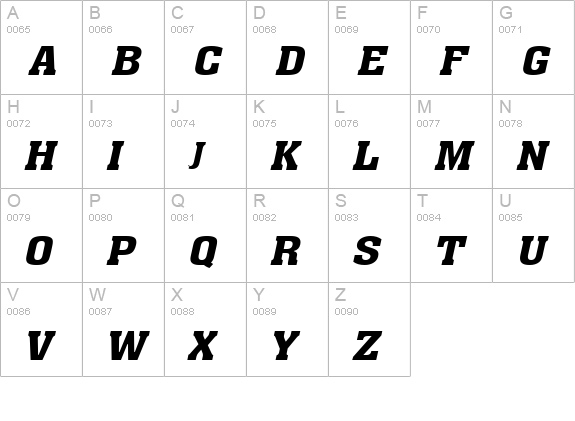
Ache Wide BoldItalic is a distinctive, extended-width variant in the Ache typeface family \xE2\x80\x94 well suited to design and typography projects.
Ache Wide BoldItalic font is a striking and bold typeface that exudes a sense of confidence and modernity. Its wide and italic design adds a touch of flair and sophistication to any project or design. This versatile font is perfect for headlines, logos, branding materials, and more. Best of all, Ache Wide BoldItalic font is available for free download at FontsMarket.com. Whether you're a designer looking to add a unique touch to your work or simply a font enthusiast wanting to expand your collection, this font is a must-have. Don't miss out on the opportunity to enhance your projects with this eye-catching and stylish font that is both bold and beautiful.